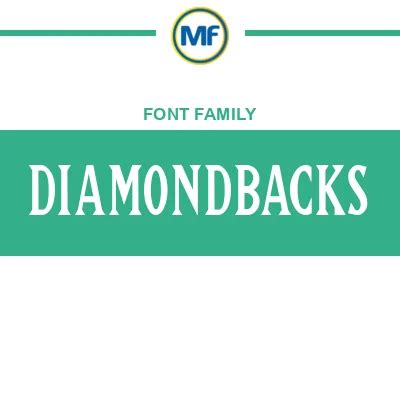
Are you a die-hard Arizona Diamondbacks fan or a designer looking to capture the spirit of this iconic baseball team? Finding the perfect Diamondbacks font can be crucial for your creative projects, whether you’re designing a fan website, creating custom apparel, or working on a presentation. In this article, we’ll explore the world of MLB fonts , with a specific focus on the Diamondbacks , and guide you on how to find and download them for free, legally and safely. So, if you’re keen to infuse your work with the unique style of the Diamondbacks, stick around, guys, because we’re about to dive deep into the world of fonts! Understanding the nuances of typography and how it relates to the Diamondbacks’ brand identity is key. The right font can instantly evoke the team’s energy and history, making your project stand out. Let’s get started and make your project sparkle with the right font!
Understanding the Importance of Team Fonts
Team fonts, like the MLB Diamondbacks font , play a significant role in branding and visual identity. These fonts are carefully chosen to reflect the team’s personality, history, and values. Think about it: the font used on jerseys, merchandise, and official communications is a visual shorthand that fans instantly recognize and connect with. For designers, using the correct team font is essential for maintaining brand consistency and authenticity. Imagine creating a fan poster with a generic, unrelated font – it just wouldn’t feel right, would it? The font helps to create an emotional connection, reinforcing the team’s image and fostering a sense of community among fans. When you see that distinctive Diamondbacks font , you immediately think of baseball, Arizona, and the excitement of the game. These fonts aren’t just about aesthetics; they’re about building a brand and telling a story. And that’s why getting it right is so important for anyone working on projects related to the team. Moreover, team fonts contribute significantly to the overall marketing and merchandising strategies of sports franchises. A well-chosen font enhances the visual appeal of products, making them more attractive to fans and consumers. This attention to detail in branding can lead to increased sales and brand loyalty. So, when you’re working with a team’s visual identity, remember that the font is a key element in communicating the team’s message and connecting with its audience. It’s about creating a cohesive and recognizable brand that resonates with fans and embodies the spirit of the game. It all starts with understanding the power and impact of a carefully selected team font.
Where to Find Free Diamondbacks Fonts
Finding a free Diamondbacks font can be a bit of a treasure hunt, guys, but don’t worry, we’ve got some tips to help you out. First off, it’s important to be clear: official, licensed fonts are rarely available for free. However, there are ways to find similar fonts or fan-made versions that capture the essence of the Diamondbacks’ style. One of the best places to start is by searching reputable font websites that offer a variety of free fonts. Look for keywords like “baseball font,” “sports font,” or even “athletic font.” You might not find the exact official font, but you can often find something that’s close enough for personal projects. Another great resource is online design communities and forums. These communities often have members who create and share custom fonts inspired by sports teams. Keep an eye out for threads discussing MLB fonts or requests for Diamondbacks -related typography. You might stumble upon a hidden gem! When downloading fonts from any source, always make sure to check the licensing agreement. Some fonts are free for personal use but require a commercial license for business purposes. It’s better to be safe than sorry and respect the font creator’s terms. Also, be extra cautious about downloading fonts from unknown or shady websites. These sites can sometimes bundle malware or viruses with the font file, which can wreak havoc on your computer. Stick to reputable sources and always scan downloaded files with antivirus software. Finally, consider exploring font identification tools. If you have an image of the Diamondbacks font you like, you can upload it to a font identification website, and it will try to match it with similar fonts available for download. While this might not give you the exact font, it can lead you to some excellent alternatives. So, with a little bit of searching and caution, you can definitely find a free or affordable font that captures the spirit of the Diamondbacks for your creative projects!
Identifying the Official Diamondbacks Font
Okay, so you’re on the hunt for the official Diamondbacks font ? Identifying it can be a bit tricky, guys, because teams often use custom-designed fonts or modify existing ones to create a unique look. However, there are a few ways to get a good idea of what font the Diamondbacks use and find similar alternatives. Start by closely examining the team’s official website, merchandise, and marketing materials. Pay attention to the fonts used for logos, player names on jerseys, and promotional text. Look for distinct characteristics in the letterforms, such as the shape of the serifs, the thickness of the strokes, and the overall style. Once you have a good visual reference, you can try using online font identification tools. These tools allow you to upload an image of the font, and they’ll attempt to match it with fonts in their database. While they might not find the exact match, they can often suggest similar fonts that capture the same feel. Another helpful approach is to consult with typography experts or graphic designers who specialize in sports branding. They might have insights into the Diamondbacks’ font choices or be able to identify the font based on their knowledge of typography. Keep in mind that the Diamondbacks may use different fonts for different purposes. For example, the font used for the team logo might be different from the font used for player names on jerseys. Be sure to consider all the different applications of typography in the team’s branding. Additionally, it’s worth noting that sports teams sometimes update their fonts as part of rebranding efforts. So, the font that the Diamondbacks use today might be different from the font they used in the past. Always check the most recent official materials to ensure you’re identifying the correct font. By combining visual analysis, font identification tools, and expert advice, you can get a pretty good idea of the official Diamondbacks font and find suitable alternatives for your projects. And remember, even if you can’t find the exact font, a close match can still capture the team’s spirit and enhance your designs.
Tips for Using Your Downloaded Font
Alternatives to the Official Font
Okay, so maybe you couldn’t find the exact official Diamondbacks font for free, or maybe you’re looking for something a little different. No worries, guys, there are plenty of awesome alternatives out there! When searching for alternatives, think about the key characteristics of the Diamondbacks font . Is it bold and sporty? Does it have a particular slant or style? Use these characteristics as a guide when exploring other font options. One great place to start is by looking at other sports fonts. Many fonts are designed specifically for sports teams and athletic branding. These fonts often have a similar look and feel to the Diamondbacks font , with bold letterforms and dynamic designs. Another option is to explore fonts with a vintage or retro style. These fonts can evoke a sense of nostalgia and tradition, which can be a great fit for a baseball team like the Diamondbacks . Look for fonts with serifs or slab serifs, as these styles often have a classic, timeless feel. You can also consider using fonts with a modern or futuristic style. These fonts can give your designs a more contemporary edge, while still capturing the energy and excitement of baseball. Look for fonts with clean lines, geometric shapes, and a bold, impactful presence. When choosing an alternative font, be sure to consider the overall design and context of your project. The font should complement the other design elements and enhance the overall message. Don’t be afraid to experiment with different font combinations and styles to find the perfect fit. Another helpful tip is to look at fonts used by other MLB teams. While you don’t want to copy another team’s font exactly, you can draw inspiration from their design choices and find fonts that share similar characteristics. Remember, the goal is to find a font that captures the spirit of the Diamondbacks and enhances your designs. So, don’t be afraid to get creative and explore different options until you find the perfect match. With a little bit of searching and experimentation, you can definitely find an alternative font that’s just as awesome as the official Diamondbacks font !
So, there you have it, guys! A comprehensive guide to finding and using the MLB Diamondbacks font for your projects. Whether you’re a die-hard fan, a designer, or just someone looking to add a touch of baseball flair to your work, we hope this article has been helpful. Remember, finding the perfect font can take time and effort, but the results are well worth it. The right font can elevate your designs, capture the spirit of the Diamondbacks , and create a lasting impression. From understanding the importance of team fonts to exploring free resources and identifying the official font, we’ve covered all the bases. We’ve also shared tips for using your downloaded font effectively and suggested alternatives if you can’t find the exact match. So, go forth and unleash your creativity with the Diamondbacks font ! Whether you’re designing a website, creating merchandise, or working on a presentation, the right font can make all the difference. And remember, always respect font licensing terms and be cautious when downloading fonts from unknown sources. With a little bit of research and careful consideration, you can find the perfect font to enhance your projects and show your support for the Arizona Diamondbacks . So, grab your glove, step up to the plate, and let your designs shine with the power of typography! Let’s get creative and show off our team spirit through awesome designs and fonts! Happy designing, and go Diamondbacks ! Above all, have fun exploring the world of fonts and creating designs that you’re proud of.